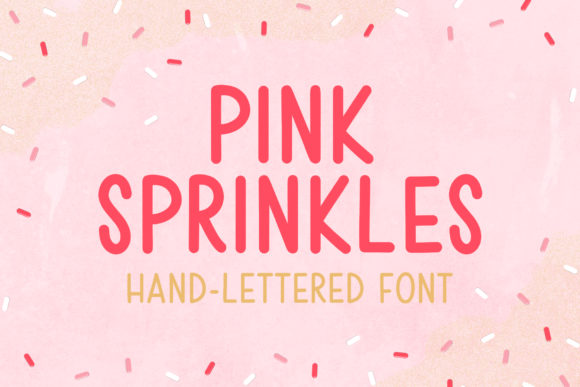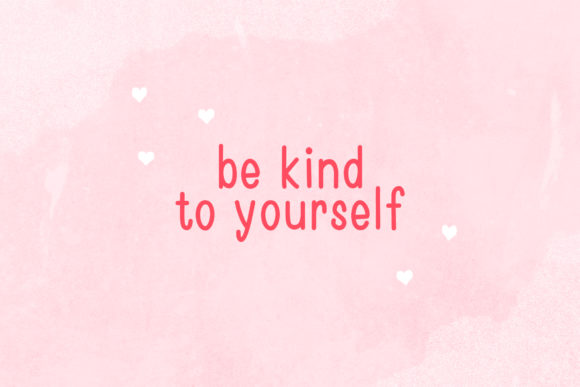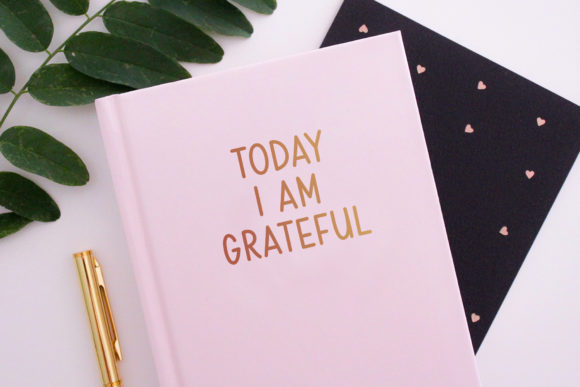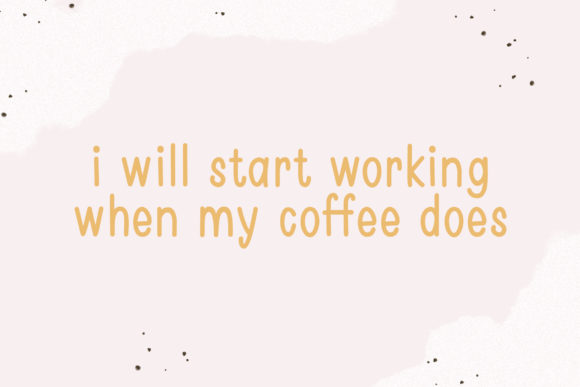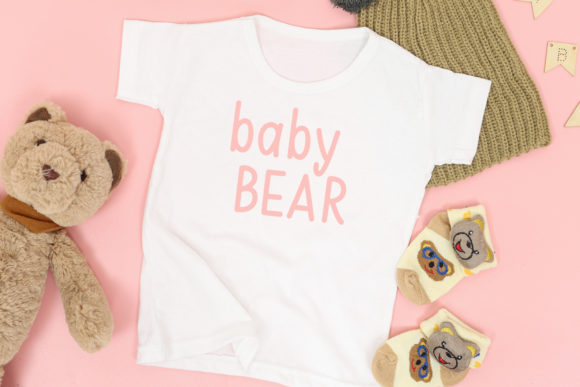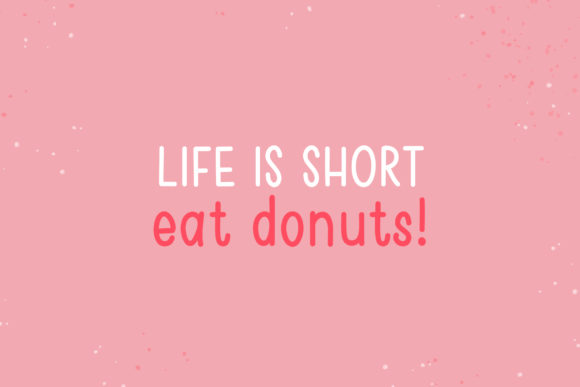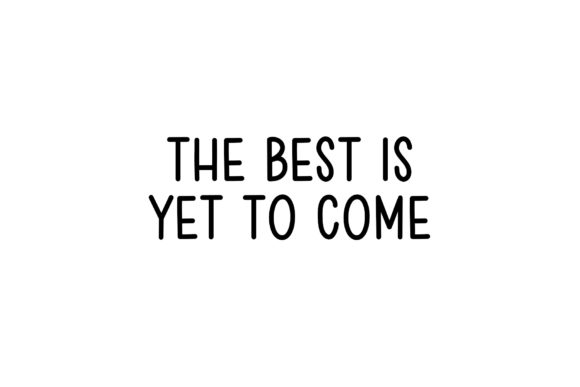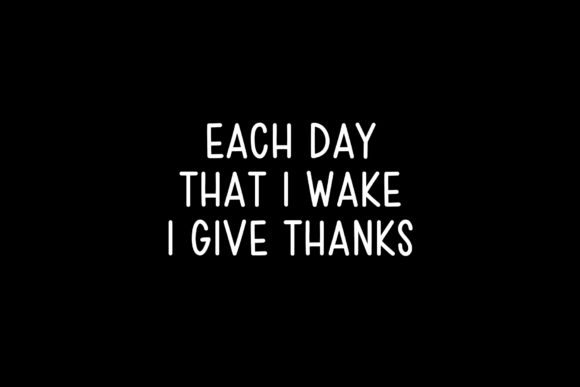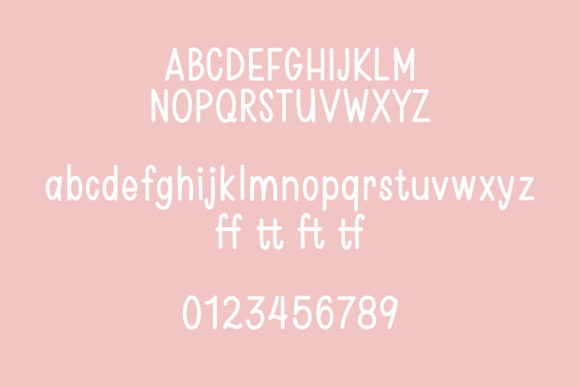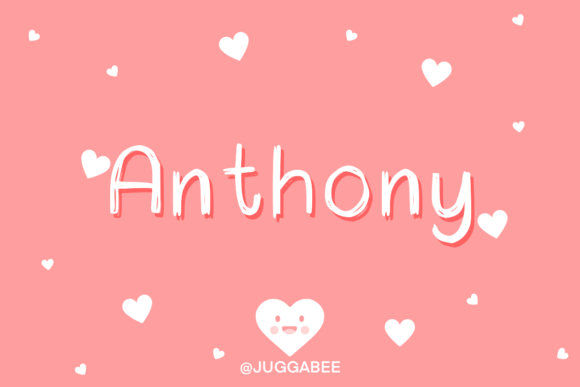
Pink Sprinkles Font
About Pink Sprinkles Font
Pink Sprinkles is a casual handwritten font with authentic characters. Its laid-back vibe is incredibly versatile, and it can be used in everything from children’s products to packaging, social media and more!